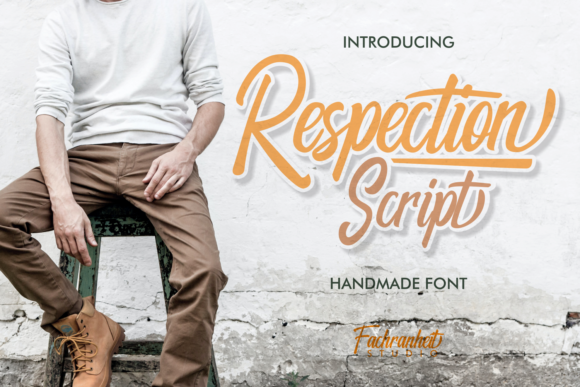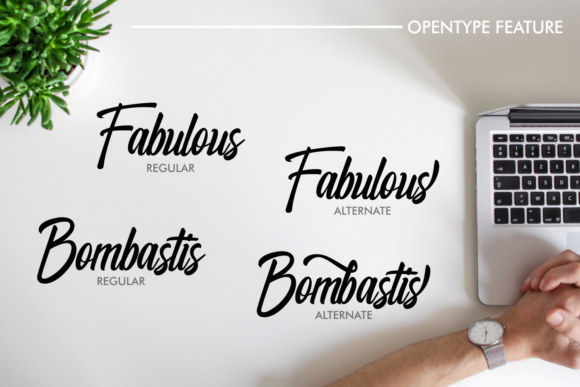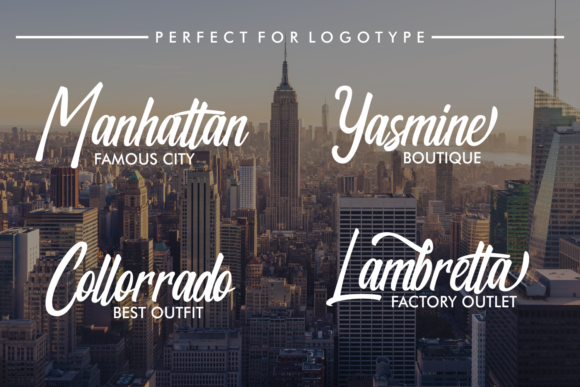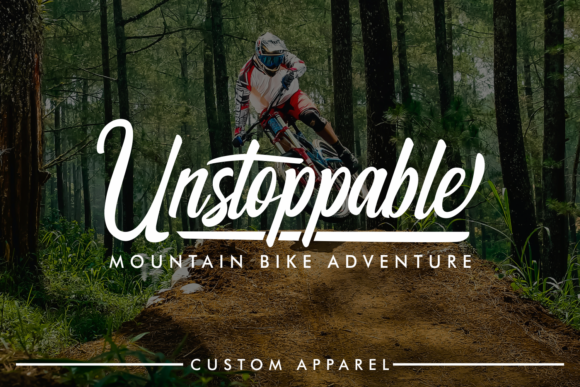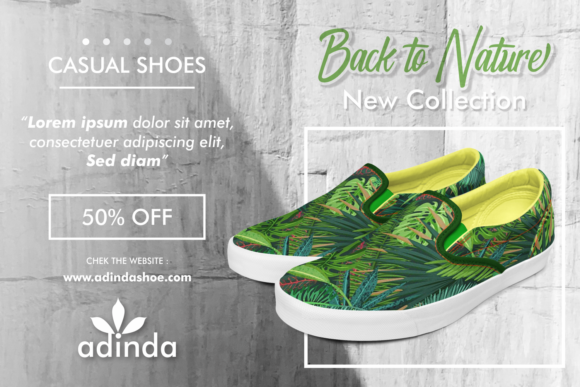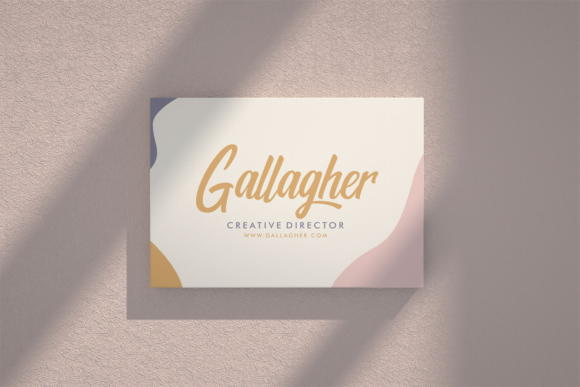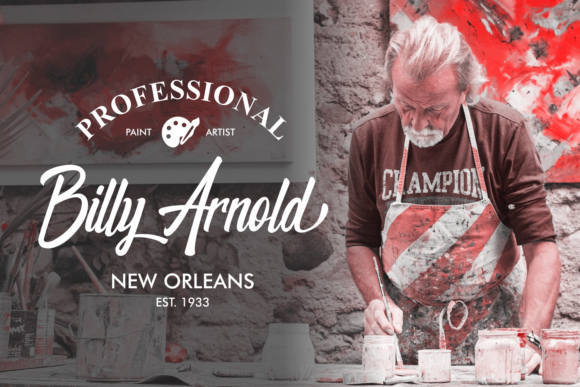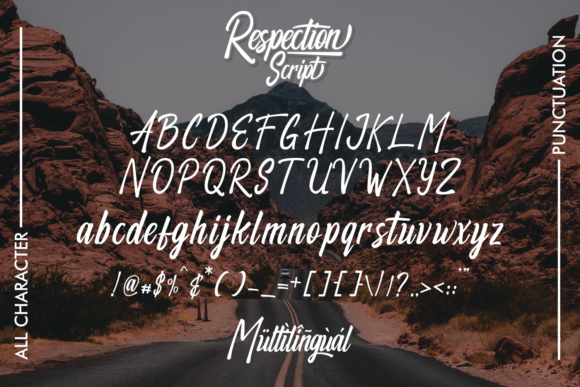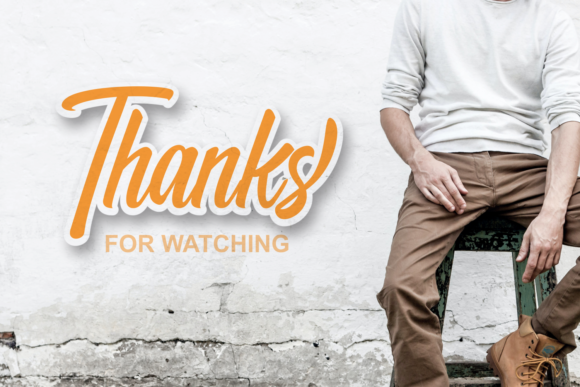
Respection Font
About Respection Font
Respection is a cute and casual handwritten font with an incredibly friendly feel. Use this gorgeous and unique font to bring any DIY project to life!